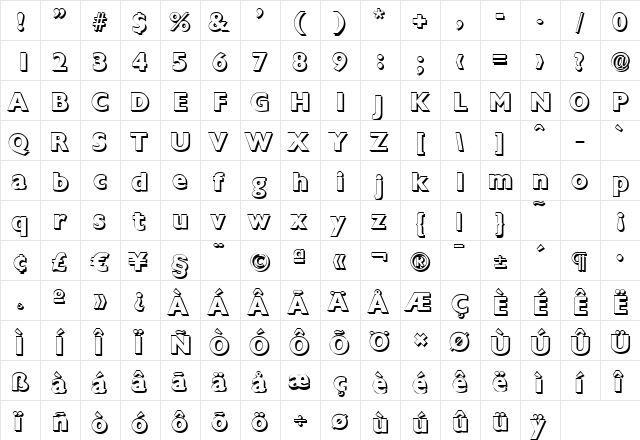
DavidBeckerShadow-ExtraBold Regular Font Preview
DavidBeckerShadow-ExtraBold Regular
DavidBeckerShadow-ExtraBold Regular Font Details
Design Context for DavidBeckerShadow-ExtraBold Typeface
DavidBeckerShadow-ExtraBold is built around its visual character rather than neutral utility — its distinctive forms are designed to make an impression at display sizes. Its bold stroke weight gives it real presence on the page.
Font Pairing: Pair with a clean neutral sans-serif for body copy to let DavidBeckerShadow-ExtraBold's character lead without overwhelming the composition.
Pro Tip: Treat DavidBeckerShadow-ExtraBold as the centrepiece of your typographic hierarchy. One strong heading set in a decorative face can carry an entire layout.